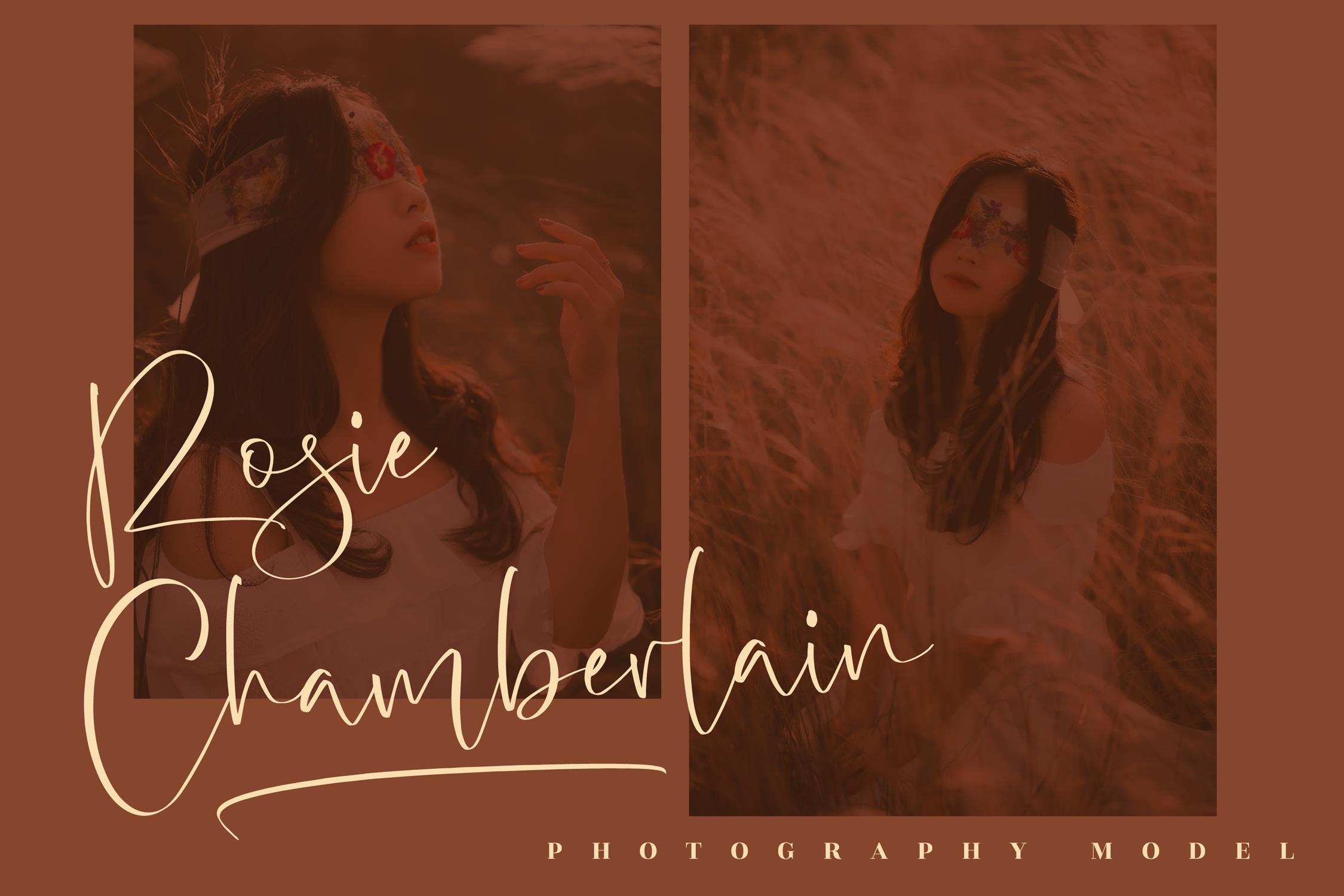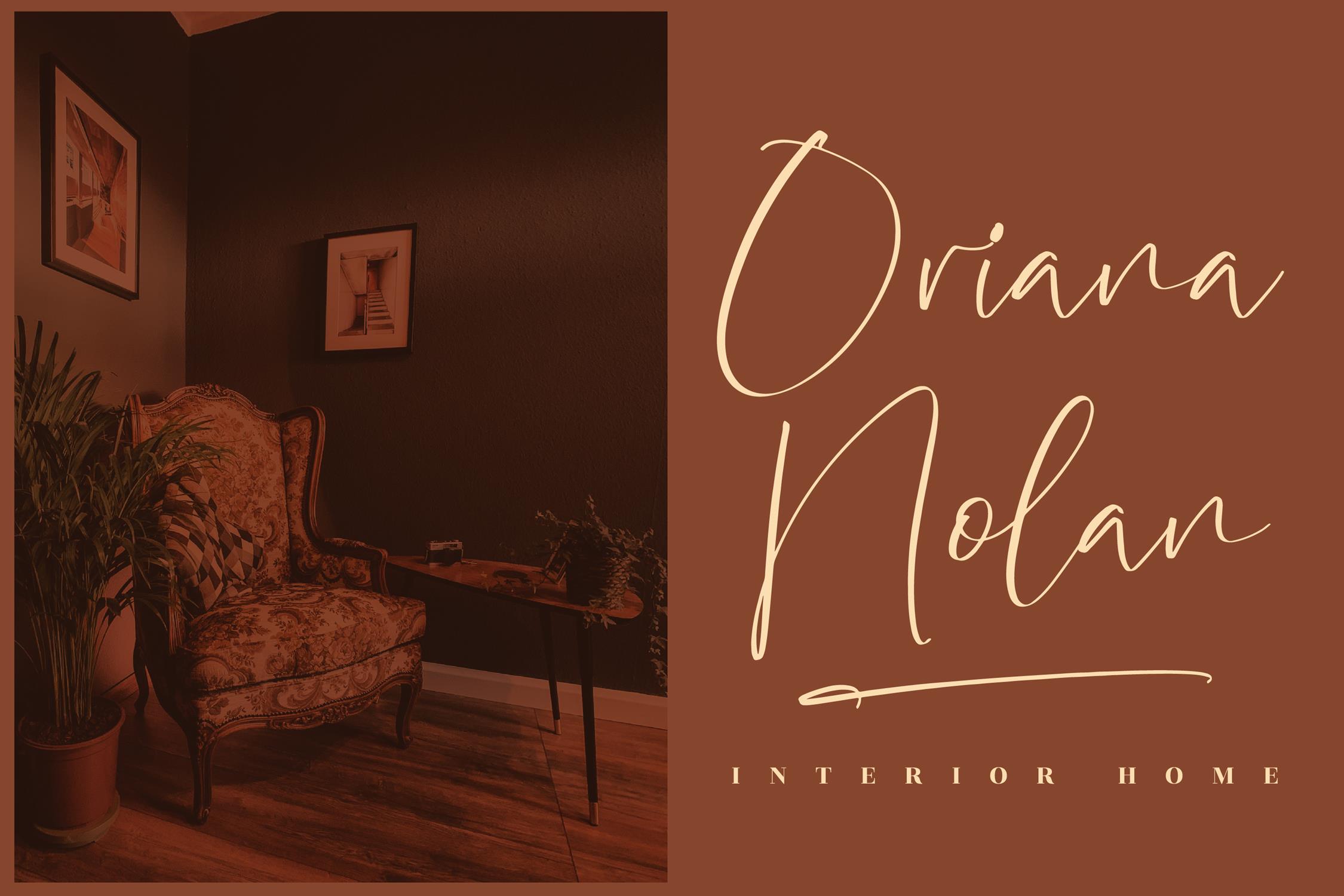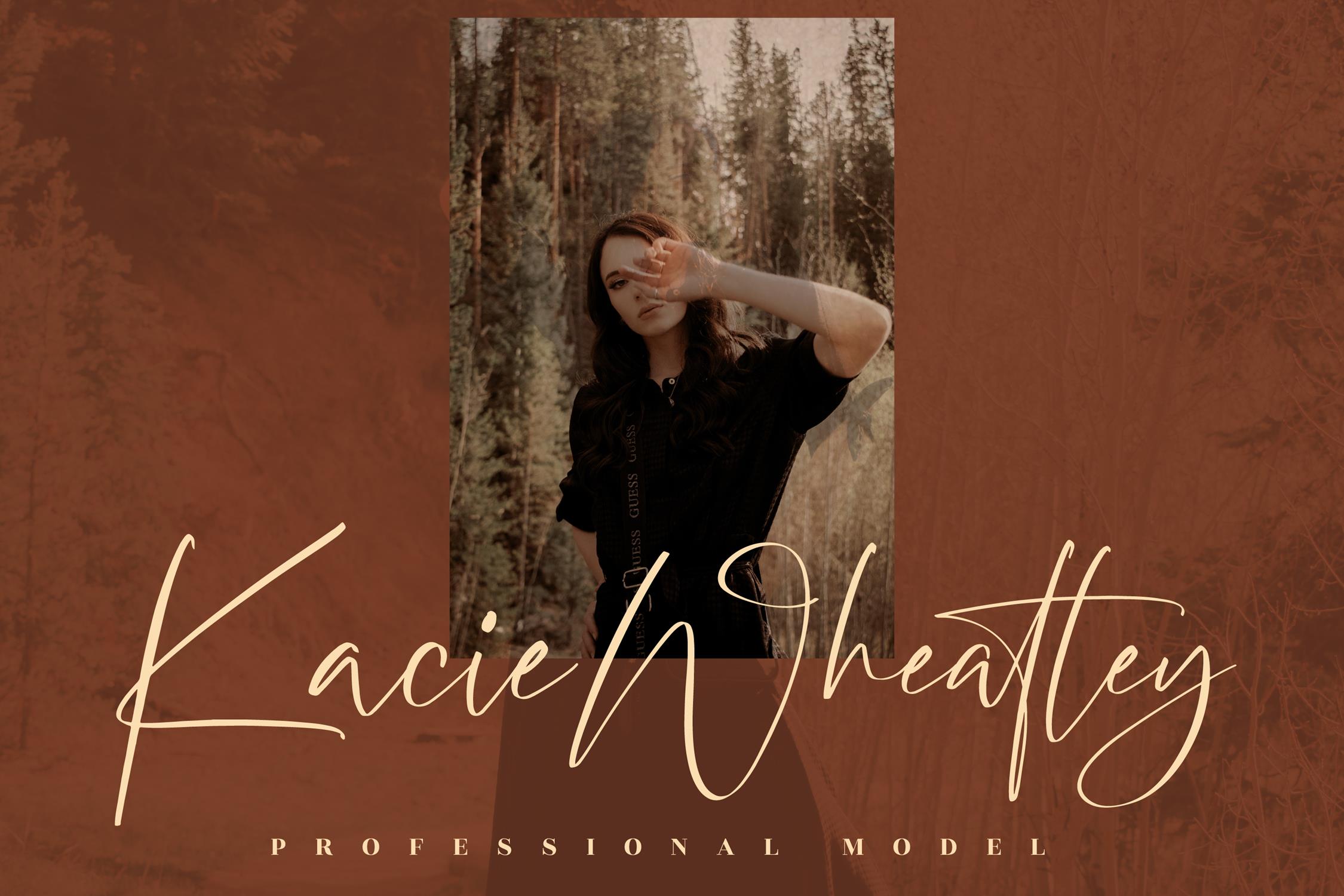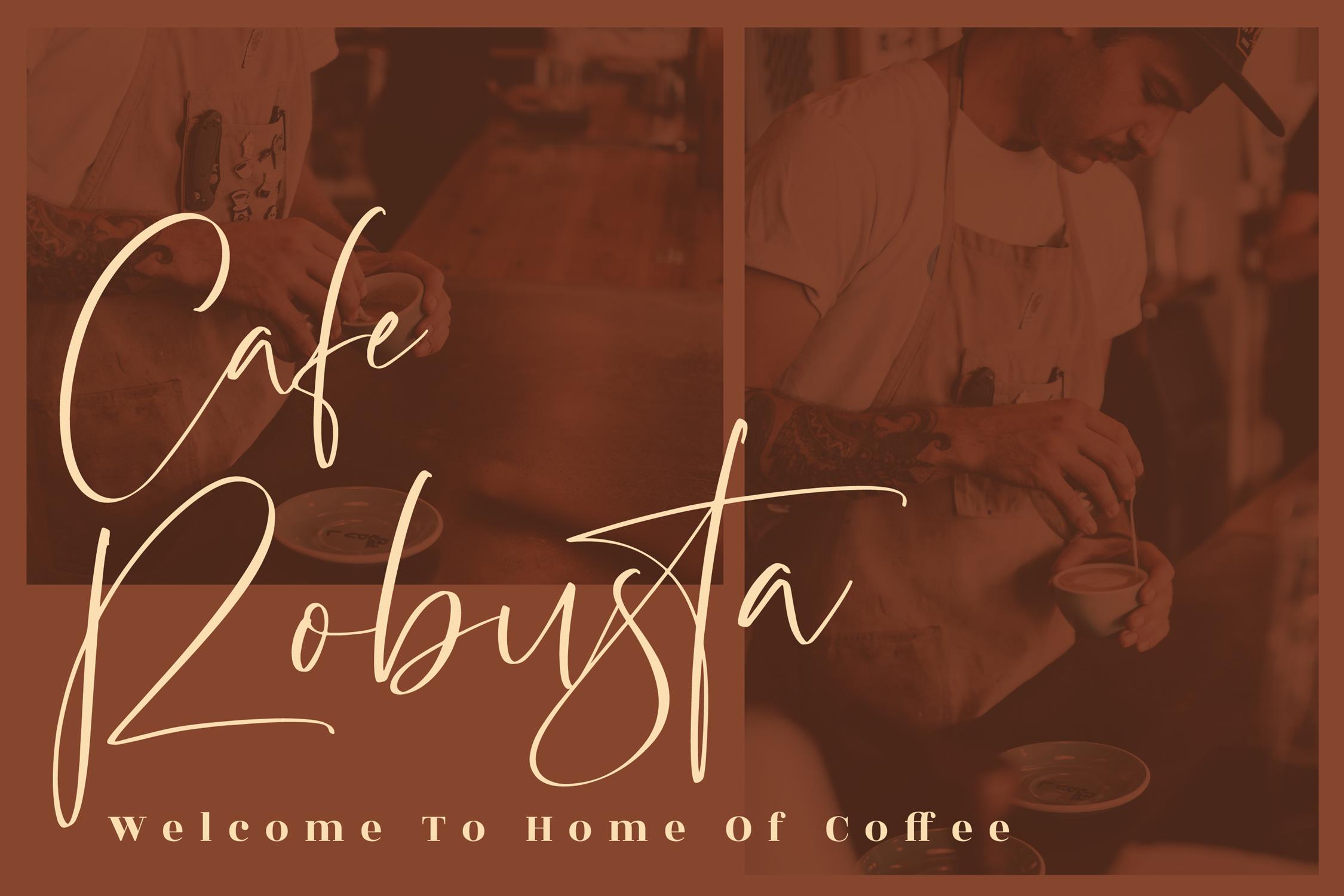
Patrick Rastelo – Beautiful Handwritten Font, from Glorytype Studio, is a beautiful script font, suitable for any projects such as: logos, branding projects, homeware designs, product packaging, mugs, quotes, posters, shopping bags, t-shirts, book covers, name card, invitation cards, greeting cards, label, photography, watermark, special events, and all your other lovely projects that need a beautiful script taste.